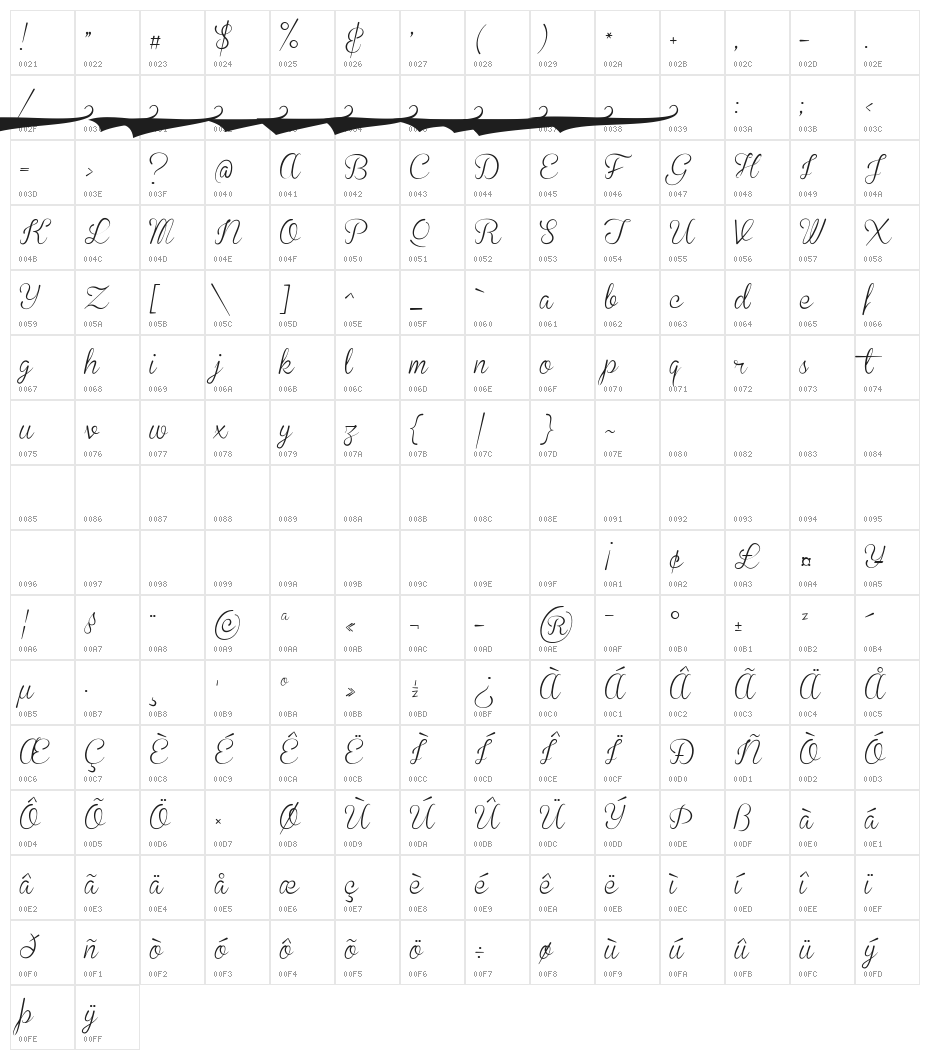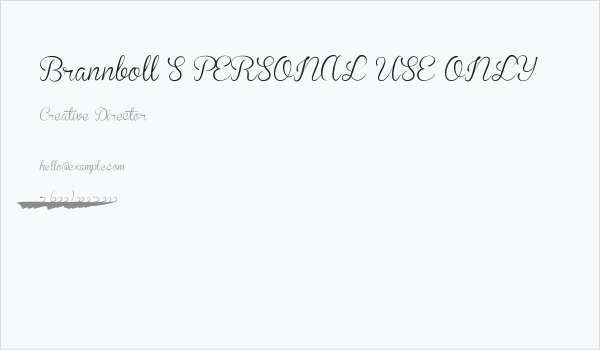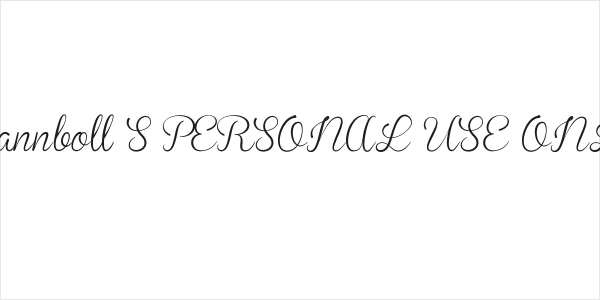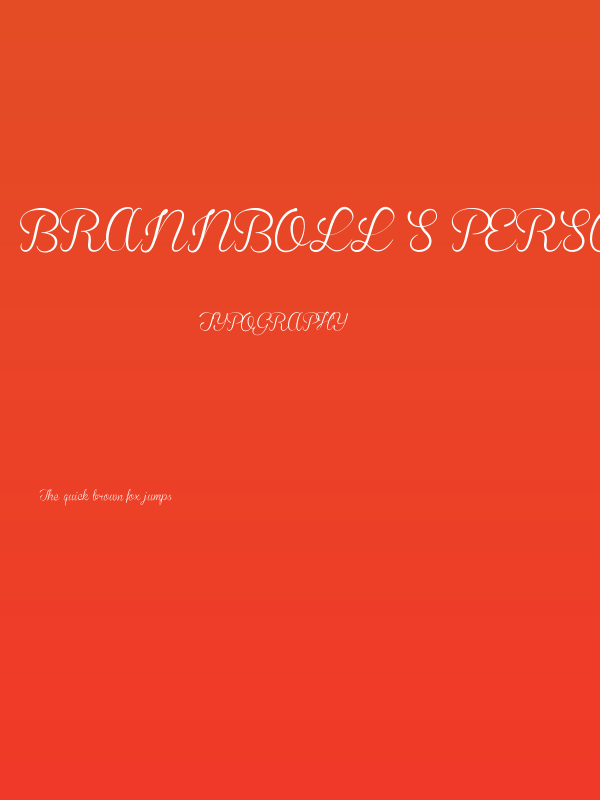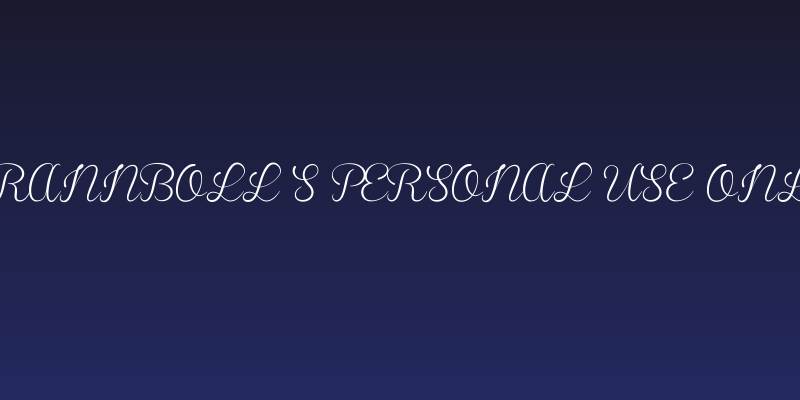
Brannboll S PERSONAL USE ONLY Font
Brannboll S PERSONAL USE ONLY Description
This font features a flowing, cursive style with elegant loops and swashes, giving it a handwritten appearance. The uppercase letters are characterized by their sweeping curves and decorative flourishes, while the lowercase letters maintain a consistent, smooth flow. The numerals and special characters complement the overall script style, adding to its cohesive look. The font's design is reminiscent of traditional calligraphy, making it suitable for projects that require a personal, artistic touch.
| Proposed Projects | Ideal for wedding invitations, greeting cards, logos, and branding materials that require a personal and artistic touch. |